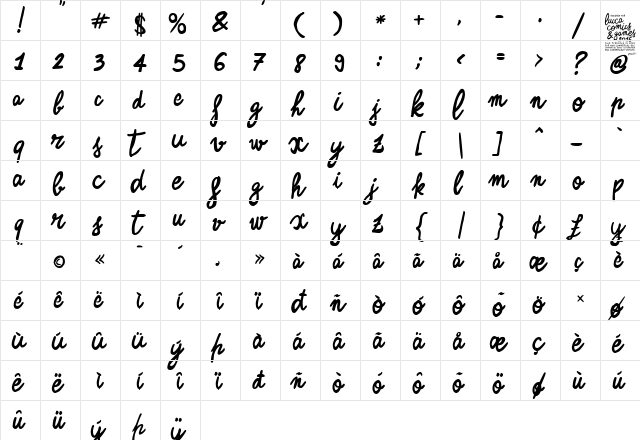
Zerocalcare Script NC Bold Font Preview
| Foundry | Studio Kmzero con Zerocalcare |
| Designer | Cosimo Lorenzo Pancini con Zerocalcare |
Design Context for Zerocalcare Script NC Typeface
Zerocalcare Script NC flows with the natural rhythm of handwritten lettering, making it ideal for designs that call for warmth and personal expression. Its bold stroke weight gives it real presence on the page.